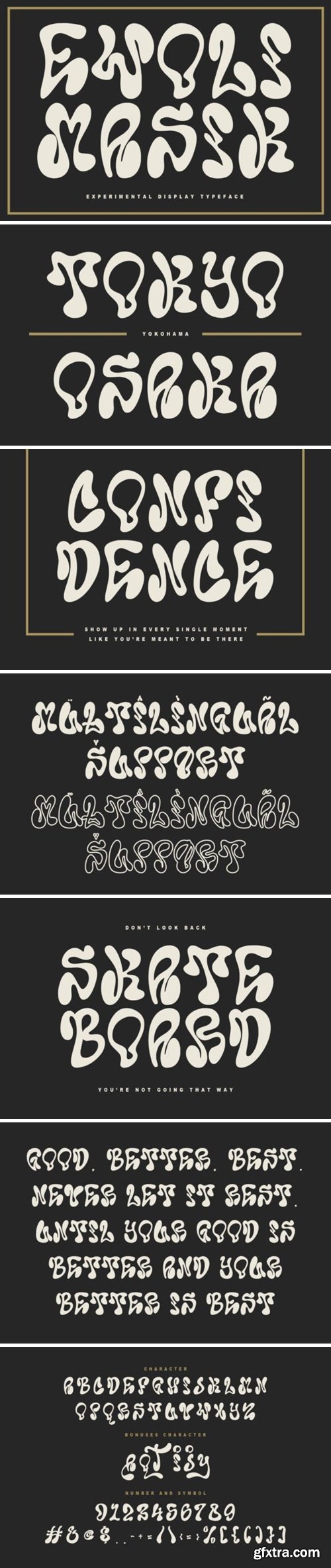
艾沃利马西克字体
Ewoli Masik experimental display typeface. Heavy stroke, fun character with a bit of ligatures. To give you an extra creative work. Ewoli Masik experimental display typeface support multilingual more than 100+ language. This font is good for logo design, Social media, Movie Titles, Books Titles, a short text even a long text letter and good for your secondary text font with script or serif. Make a stunning work with Ewoli Masik experimental display typeface.